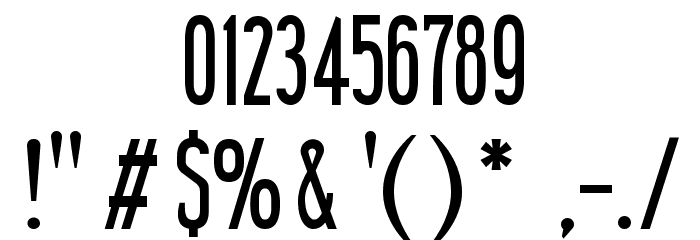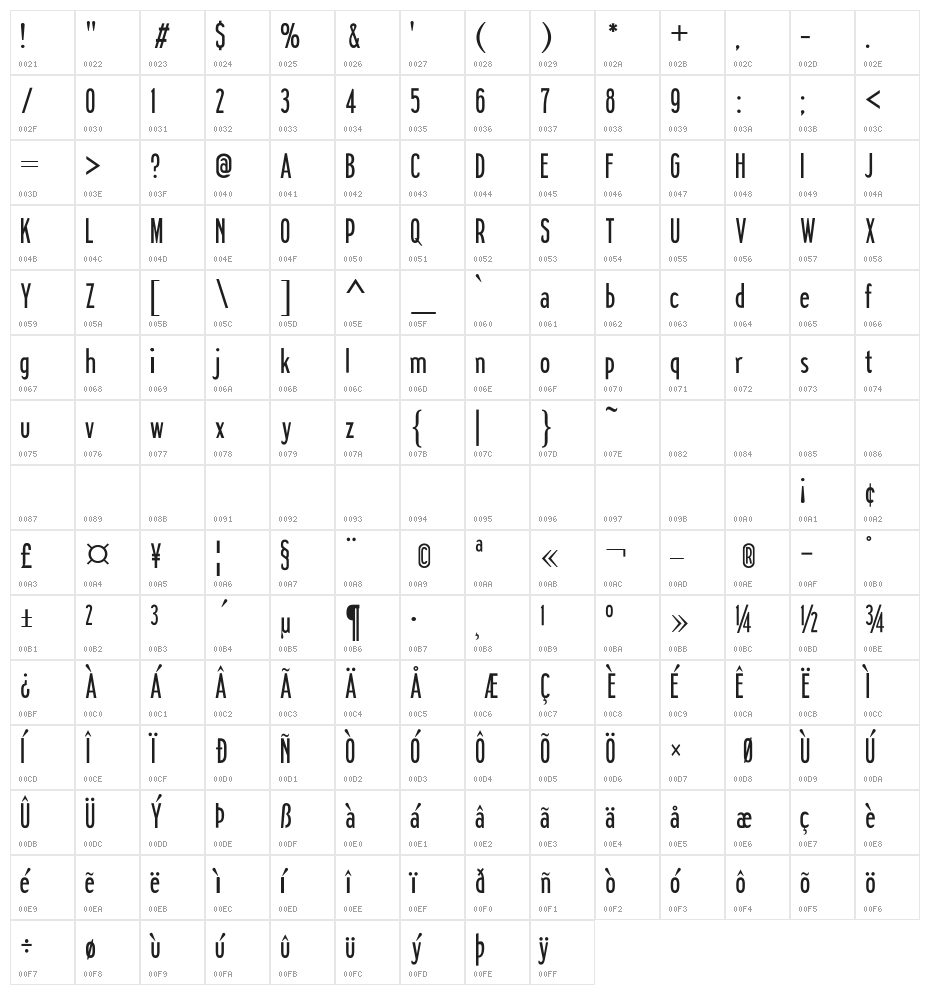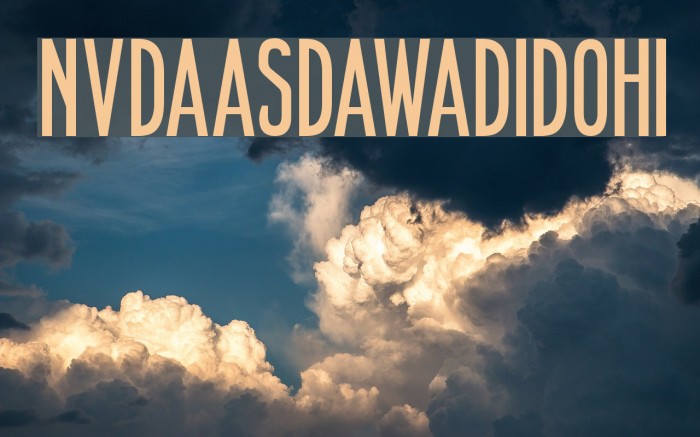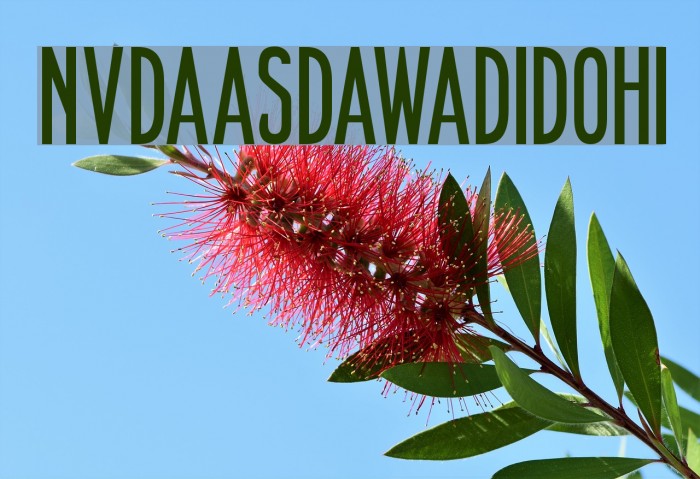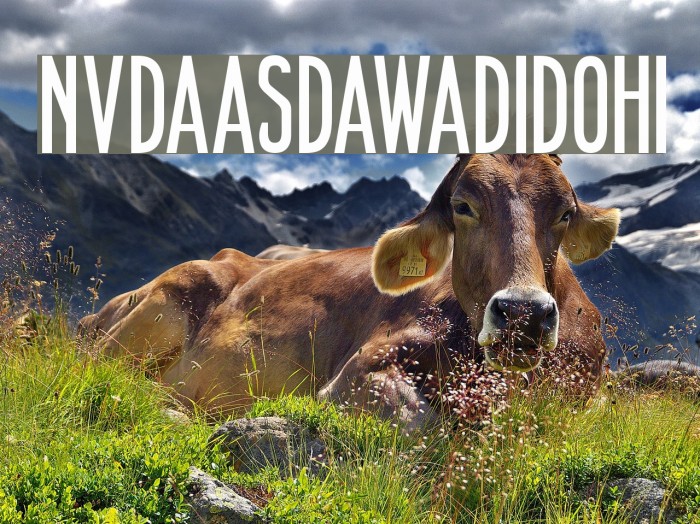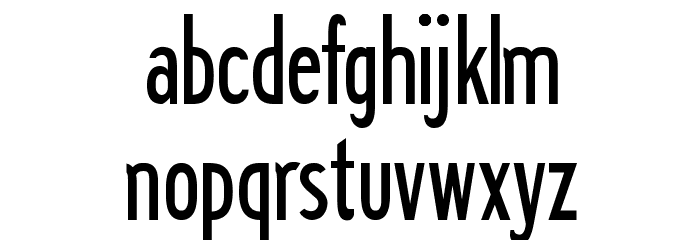
NVDAASDAWADIDOHI Font
NVDAASDAWADIDOHI Description
This font features a clean and modern sans-serif style with a uniform stroke width, giving it a sleek and contemporary appearance. The characters are tall and slightly condensed, which enhances readability while maintaining a stylish look. The uppercase letters are bold and assertive, while the lowercase letters maintain a consistent height, providing a harmonious balance. The numerals are clear and distinct, making them easily readable. The special characters are well-defined, adding versatility to the font's use. Overall, this font exudes a professional and polished vibe, suitable for a variety of design applications.
| Proposed Projects | Ideal for branding, advertising, web design, and editorial projects where a modern and professional look is desired. |